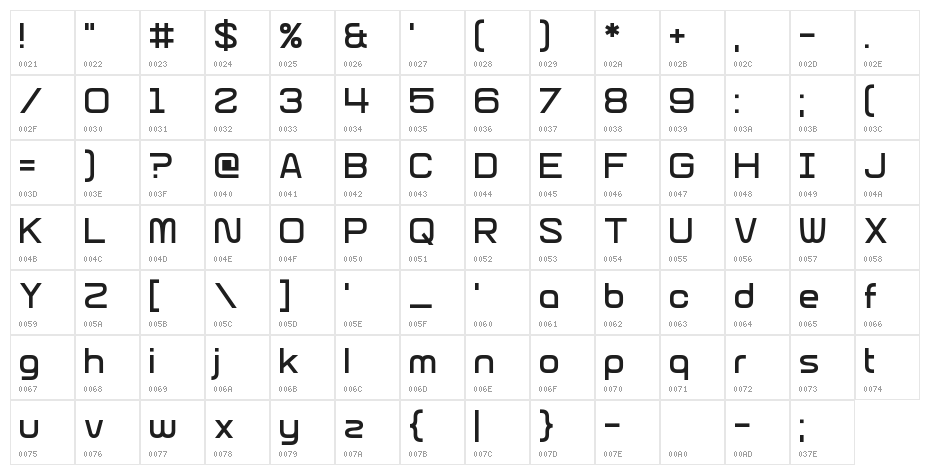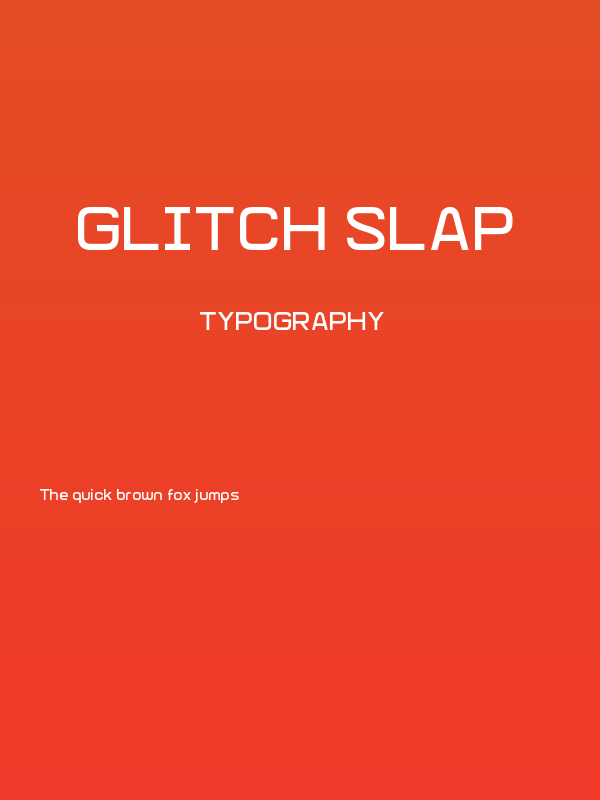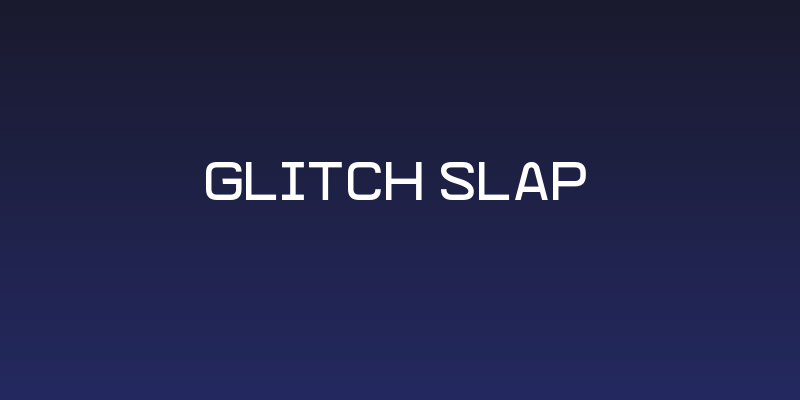
Glitch Slap Font
Glitch Slap Description
This font features a modern, geometric design with clean lines and a uniform structure. The characters are slightly rounded, giving a softer appearance while maintaining a contemporary feel. The uppercase letters are bold and assertive, while the lowercase letters maintain a consistent height and width, ensuring readability. The numerals are distinct and align well with the overall style, making them suitable for both digital and print media. Special characters are well-defined, adding versatility to the font's application. The overall design is sleek and professional, ideal for projects that require a modern aesthetic.